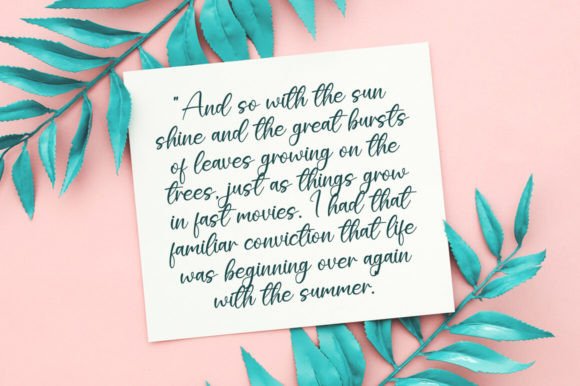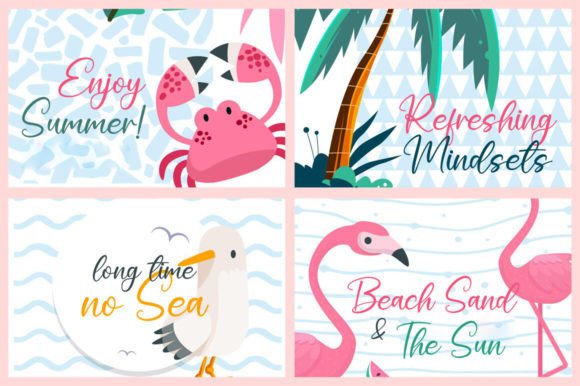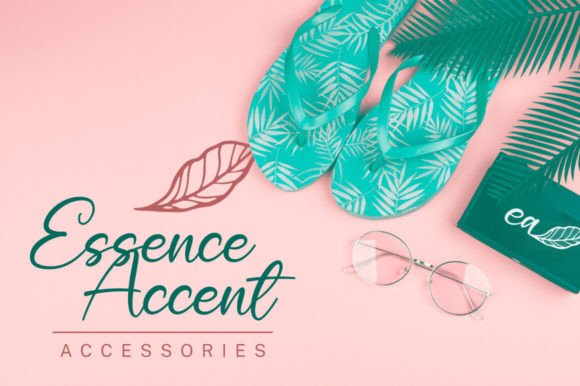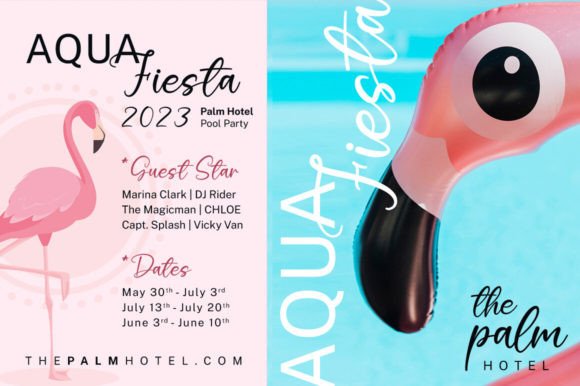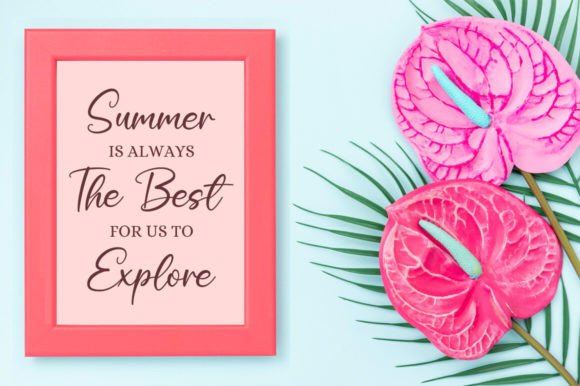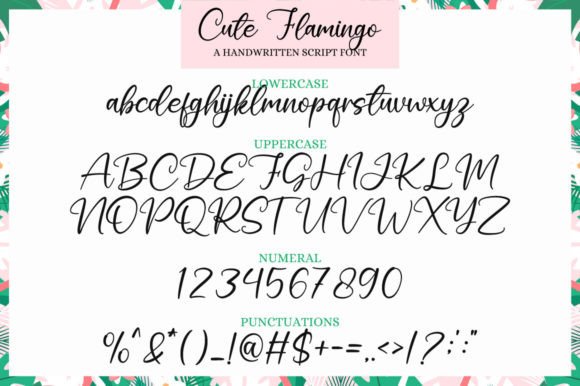
Cute Flamingo Font: The Perfect Choice for Your Creative Projects
Are you looking for a font that can add a touch of elegance and playfulness to your designs? Look no further than the Cute Flamingo font. This lovely and timeless handwritten font is perfect for creating eye-catching logos, branding, and quotes that will leave a lasting impression on your audience.
What Makes Cute Flamingo Font So Special?
Cute Flamingo is a unique and versatile font that can be used for a wide range of creative projects. Its elegant and cursive design makes it perfect for:
- Logos and branding: Create a memorable and recognizable brand identity with Cute Flamingo.
- Quotes and posters: Add a touch of sophistication and style to your inspirational quotes and posters.
- Social media graphics: Stand out on social media with eye-catching graphics and typography.
- Wedding and party decorations: Add a touch of whimsy and romance to your wedding or party decorations.
Key Features of Cute Flamingo Font
Cute Flamingo font has several key features that make it a great choice for designers and crafters:
- Handwritten design: Cute Flamingo has a beautiful, handwritten design that adds a personal touch to your projects.
- Timeless elegance: The font’s elegant and cursive design makes it perfect for creating sophisticated and stylish designs.
- Versatility: Cute Flamingo can be used for a wide range of creative projects, from logos and branding to quotes and posters.
- Easy to read: The font is clear and easy to read, making it perfect for use in body text or headings.
Tips for Using Cute Flamingo Font
Here are some tips for using Cute Flamingo font in your designs:
- Pair with bold fonts: Pair Cute Flamingo with bold fonts for a striking contrast.
- Use for headings: Use Cute Flamingo for headings and titles to add a touch of elegance and sophistication.
- Experiment with colors: Experiment with different colors and textures to add depth and interest to your designs.
- Keep it simple: Don’t overcomplicate your designs – keep it simple and let the font speak for itself.
Who Can Benefit from Cute Flamingo Font?
Cute Flamingo font is perfect for:
- Graphic designers: Add a touch of elegance and sophistication to your designs with Cute Flamingo.
- Crafters: Use Cute Flamingo to create beautiful and unique craft projects, such as handmade cards and gift tags.
- Small business owners: Create a memorable and recognizable brand identity with Cute Flamingo.
- Social media influencers: Stand out on social media with eye-catching graphics and typography.
| Font Name | Cute Flamingo Font |
| Author | Nirmala Creative |
Cute Flamingo font is a lovely and timeless handwritten font that is perfect for creating eye-catching logos, branding, and quotes. Its elegant and cursive design makes it versatile and easy to use, and its clear and easy-to-read design makes it perfect for use in body text or headings. Whether you’re a graphic designer, crafter, small business owner, or social media influencer, Cute Flamingo font is a great choice for adding a touch of elegance and sophistication to your designs.